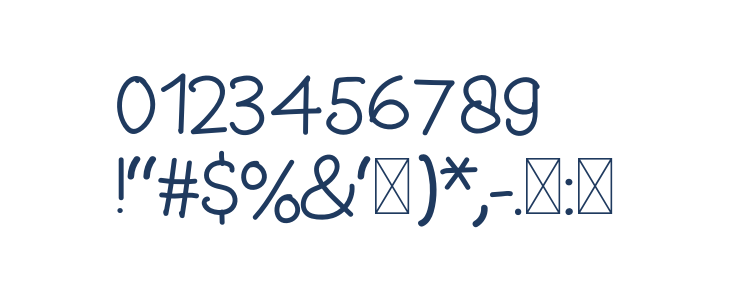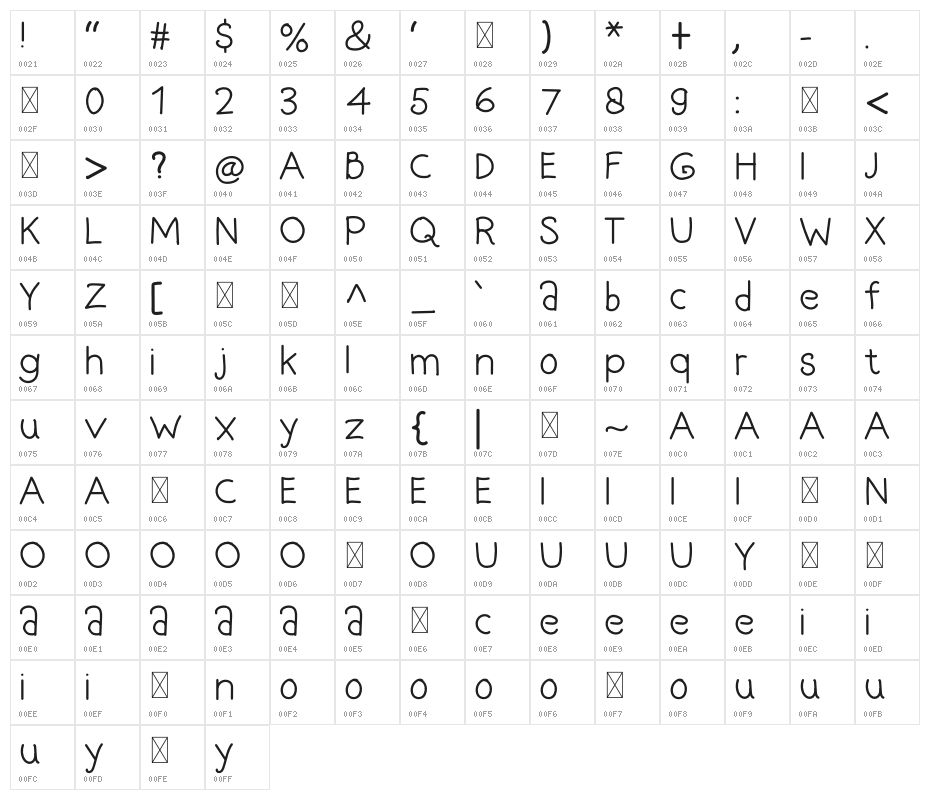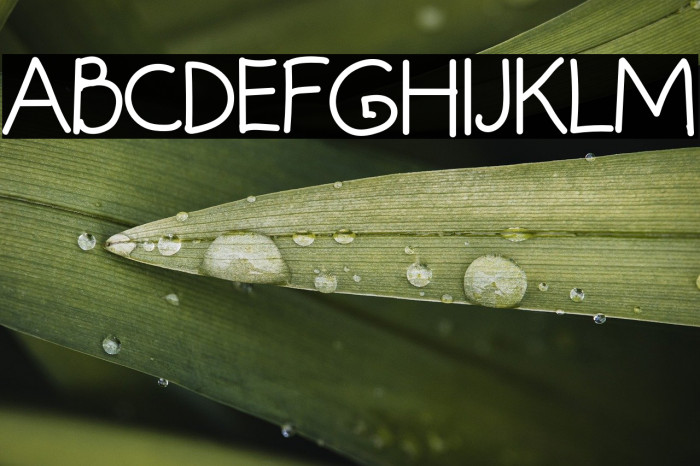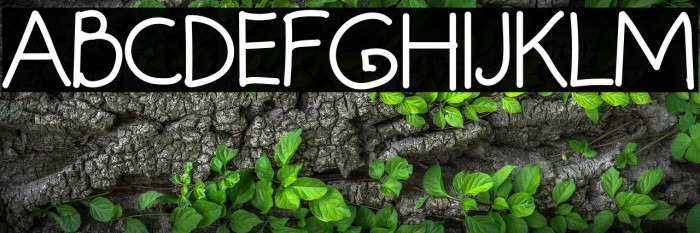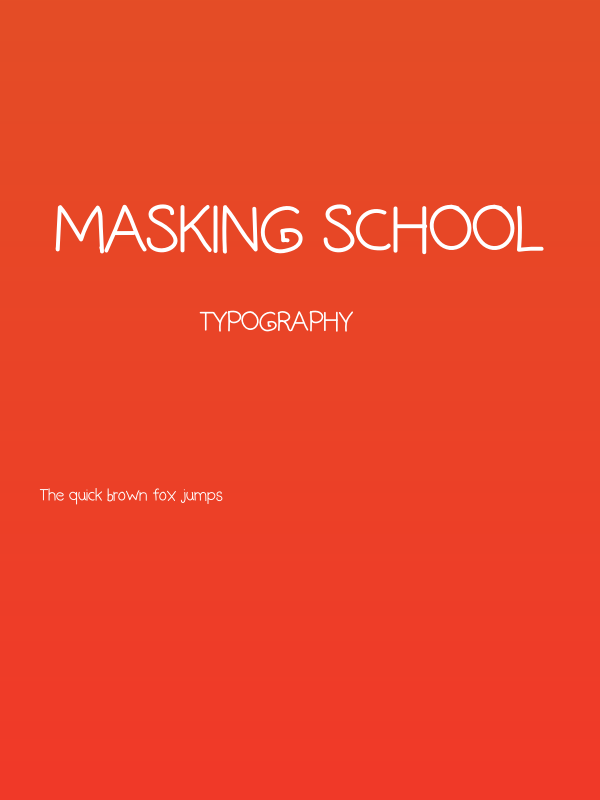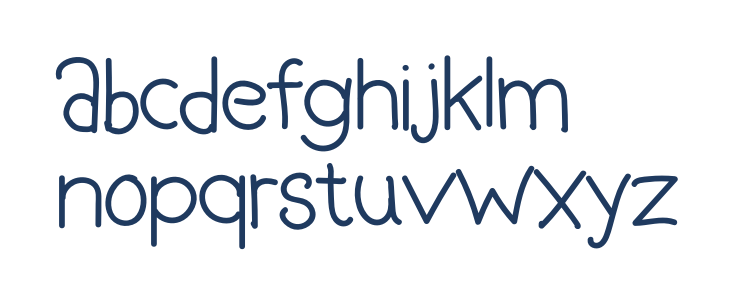
MaskiNg SchOOL Font
MaskiNg SchOOL Description
This playful and whimsical font features a handwritten style with a casual and friendly appearance. The characters are rounded and slightly irregular, giving it a charming, informal feel. The uppercase and lowercase letters maintain a consistent style, with smooth curves and a slight tilt that adds to its playful nature. The numbers and special characters follow the same design principles, ensuring a cohesive look across all elements. This font is perfect for projects that require a touch of personality and creativity, such as children's books, playful branding, or casual invitations.
| Proposed Projects | Ideal for children's books, playful branding, casual invitations, and creative projects. |